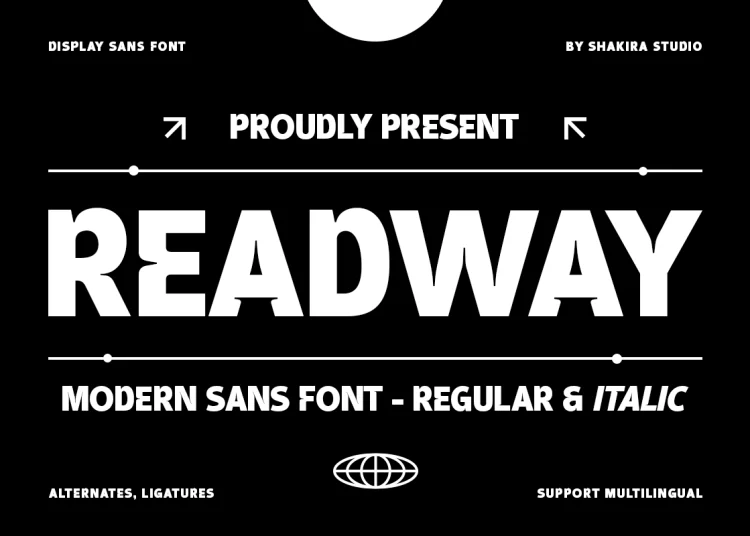
Readway Font
Readway is a contemporary sans-serif font that stands out with its bold display and distinctive characters. Designed to capture attention and make a statement, Readway is perfect for a variety of projects where you need a modern and impactful look.
Available in two styles—regular and italic—Readway offers versatility for different applications. Whether you’re working on headlines, posters, or branding materials, this font provides a sleek and contemporary feel that enhances your designs and ensures they grab viewers’ attention.
With its modern aesthetic and eye-catching style, Readway is an excellent choice for adding a bold touch to your creative projects.